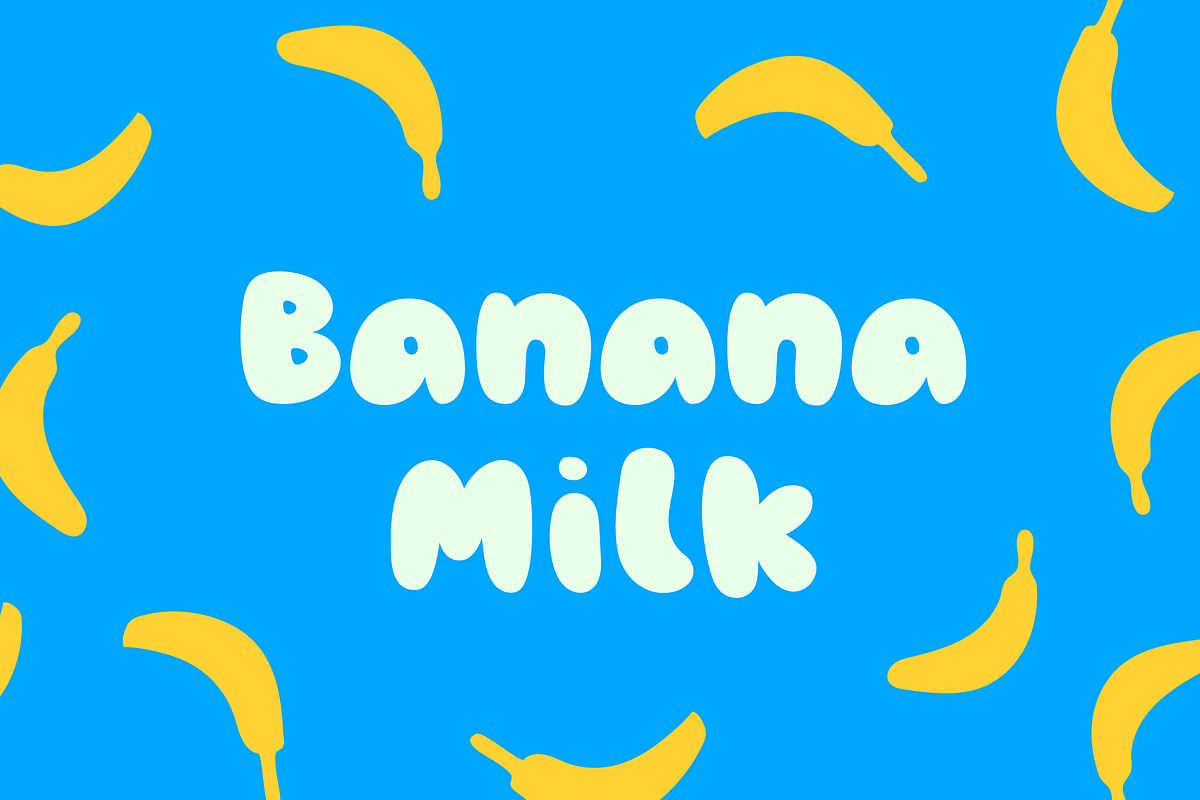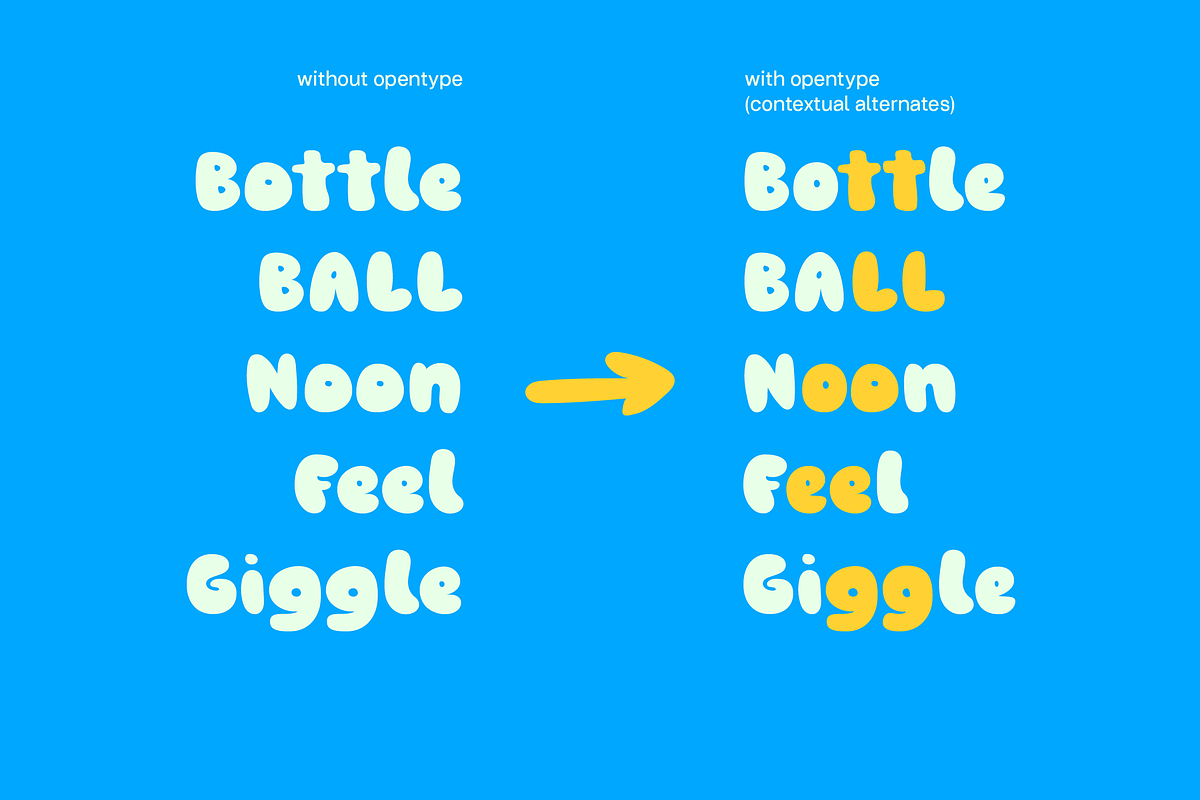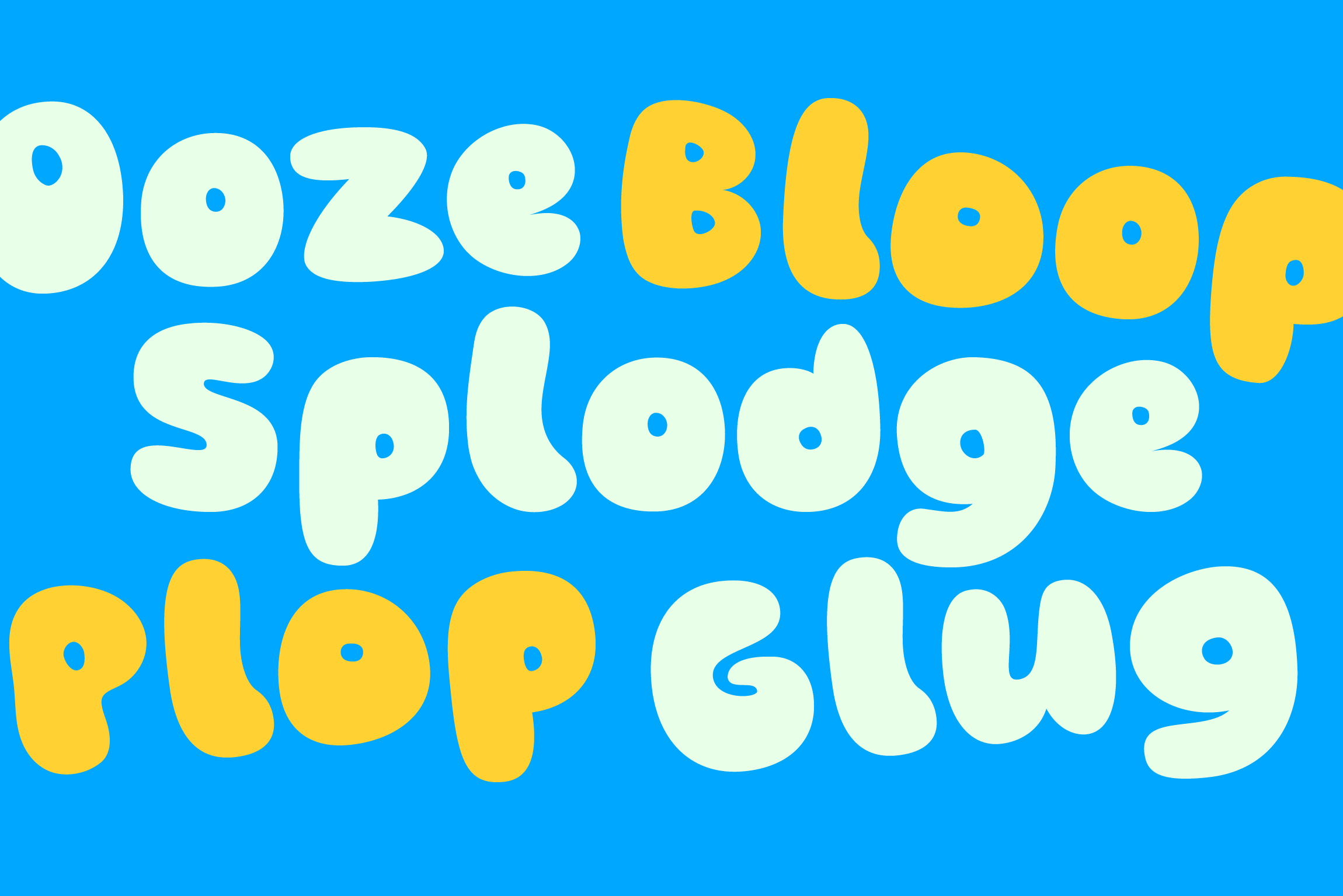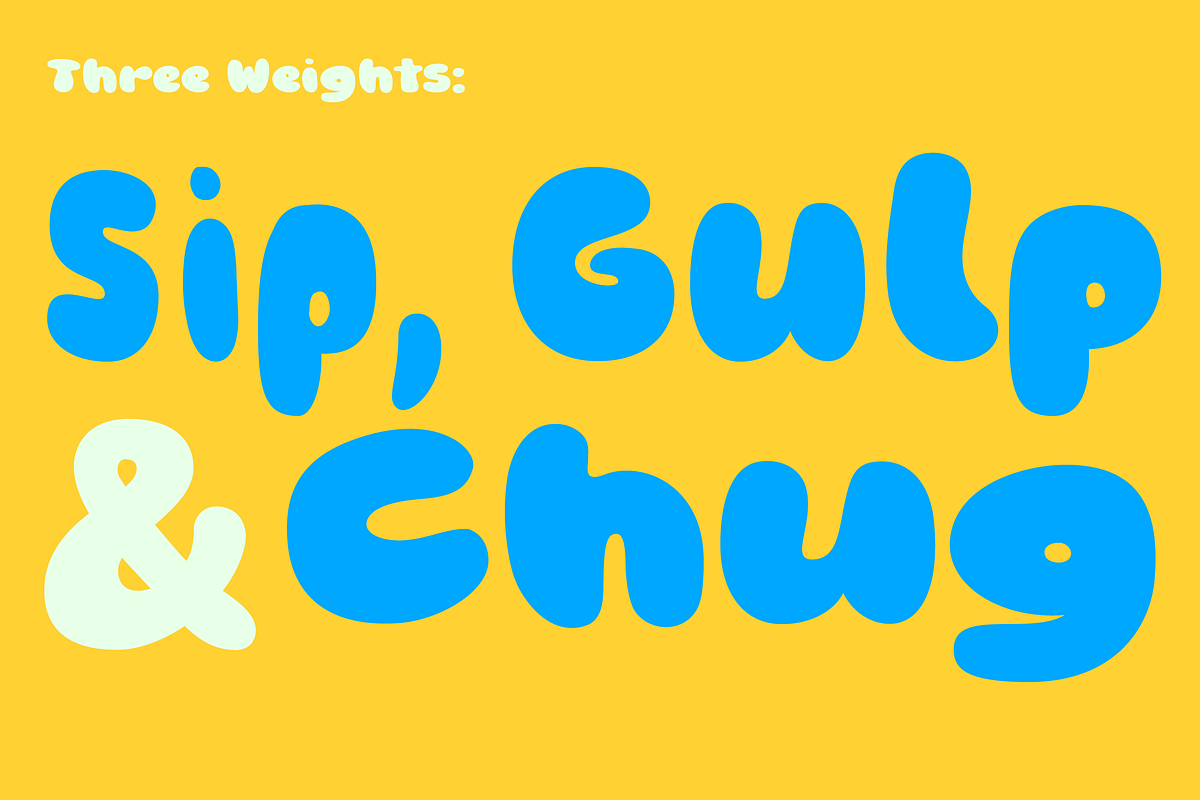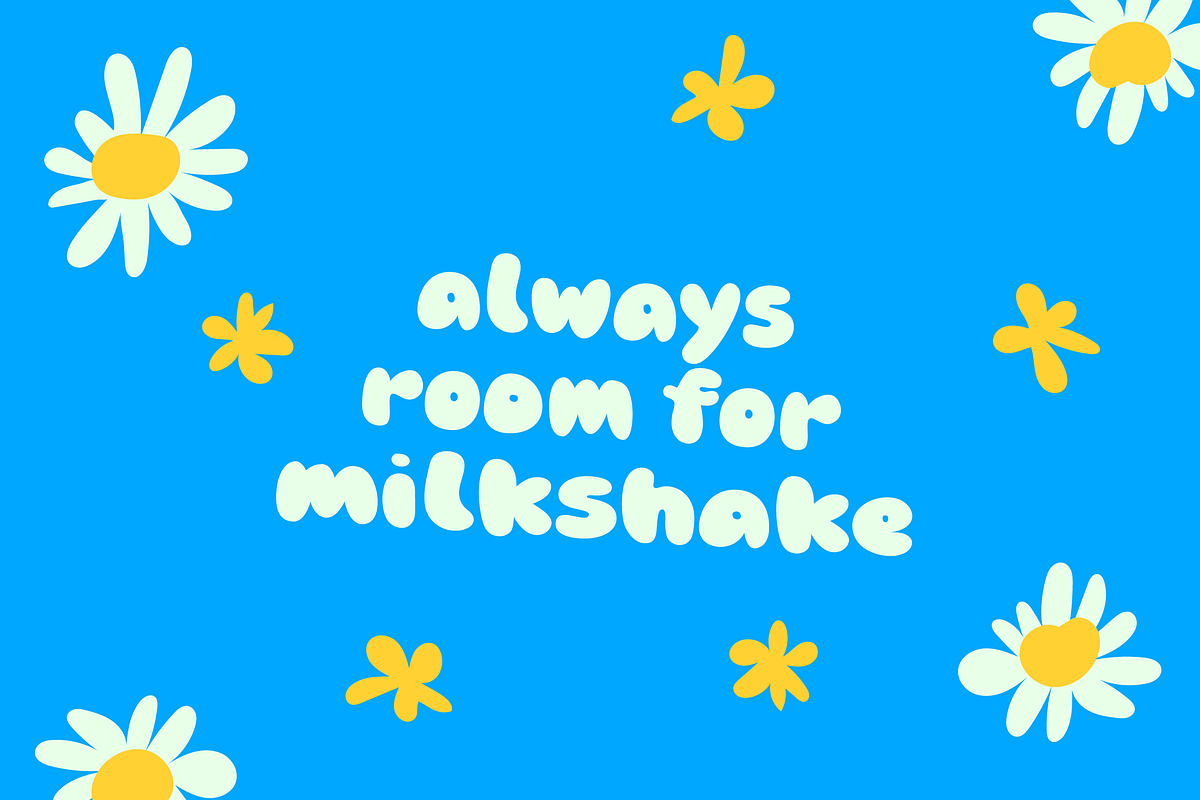
Banana Milk Bubble Display Font
Bubbly and fun
Introducing Banana Milk. Inspired by coffee shop chalkboards Banana Milk has been designed to be a chunky display font ideal for logos, posters, headings and anything you want to add a bit of rounded hand lettering feel to.